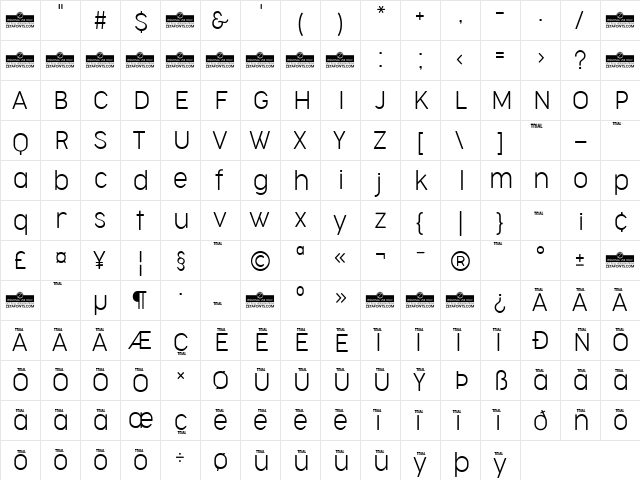
Cocogoose Narrow Trial UltraLight
Design Context for Cocogoose Narrow Trial Typeface
Cocogoose Narrow Trial is a composed and adaptable typeface that performs quietly and consistently across a wide range of design contexts. Its slender proportions lend an understated elegance to any composition. The condensed width makes it efficient for tight spaces without sacrificing legibility.